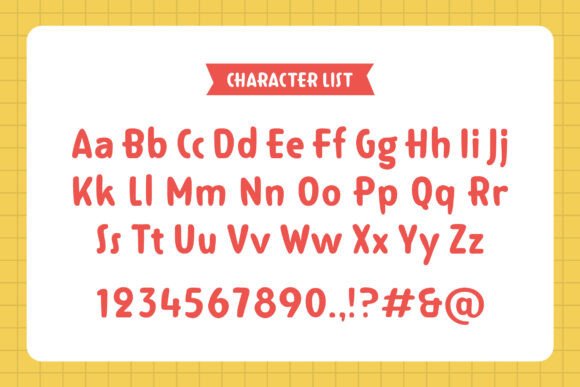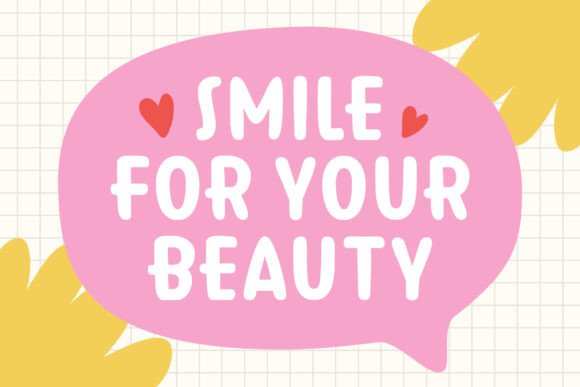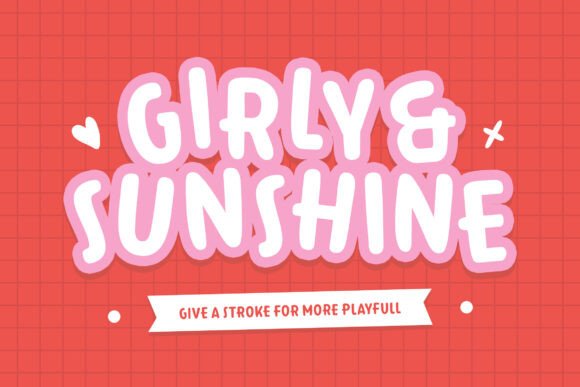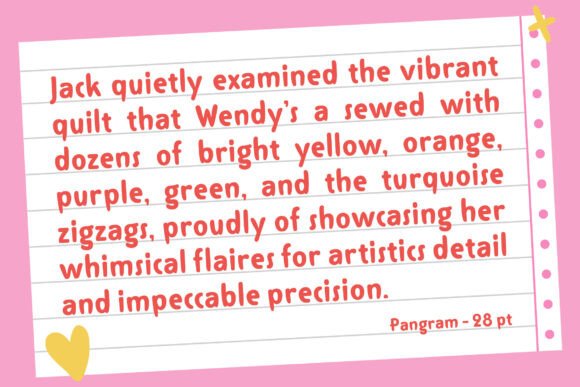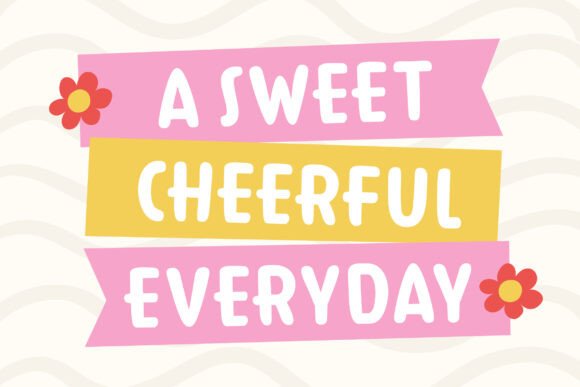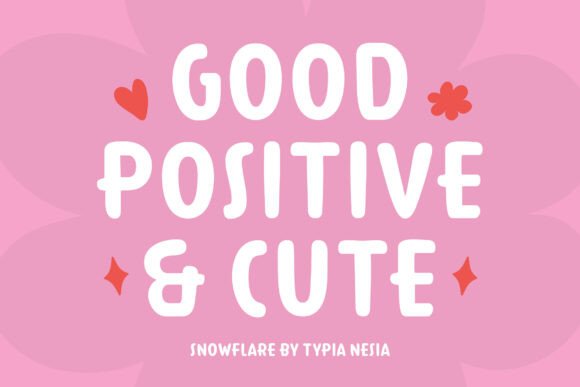
Introduction to Snowflare Font
Have you ever stared at a blank design project, feeling like you’re stuck in a creative rut? You know, that moment when your imagination is running dry, and you need something to spark that initial spark of inspiration. For designers, it’s a familiar feeling – until you stumble upon the perfect design resource to set your creativity ablaze. Enter the Snowflare Font, a charming and whimsical typeface that’s about to revolutionize the way you approach your next project.
This delightful font is more than just a pretty face; it’s a game-changer for designers who want to add a touch of personality to their work. With its transparent background and high-quality design, Snowflare Font is the perfect addition to any creative project, from branding and social media graphics to children’s books and invitations.
Key Features of Snowflare Font
- High-quality, elegant design ideal for creative projects requiring a unique aesthetic.
- Transparent background, allowing for easy customization and integration into various design resources.
- Includes multiple font styles, including regular, bold, italic, and bold-italic, providing versatility for different design applications.
Honest Review: Snowflare Font
- ✨ Unique and creative style that adds a touch of whimsy to any design
- ✨ Compatible with a wide range of applications and software, including graphic design and digital art
- ✨ Highly customizable, allowing for seamless integration with various design elements
- ⚠️ Limited character set, which may not be ideal for extended text-based projects
- ⚠️ May require additional adjustments to achieve a transparent background effect
Overall, I was impressed with the Snowflare Font and its potential to elevate a design. While it may not be suitable for all projects, it’s definitely a great addition to any design resource library, especially for those looking for a unique and creative touch.
Tips for Getting the Most Out of Snowflare Font
Use Snowflare Font on a transparent background to create a cohesive look.
Combine Snowflare Font with other high-quality design resources for a unique and creative project.
Common Use Cases for Snowflare Font
Snowflare Font is perfect for creating eye-catching titles, headings, and body text for any creative project.
Use Snowflare Font in social media graphics, blog posts, and marketing materials for a professional and modern look.